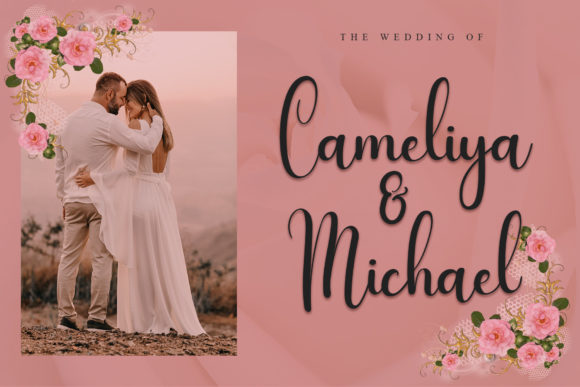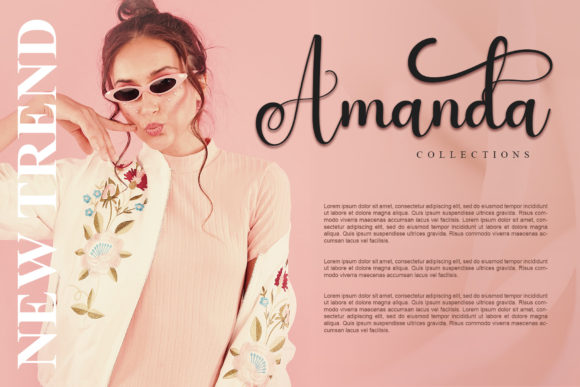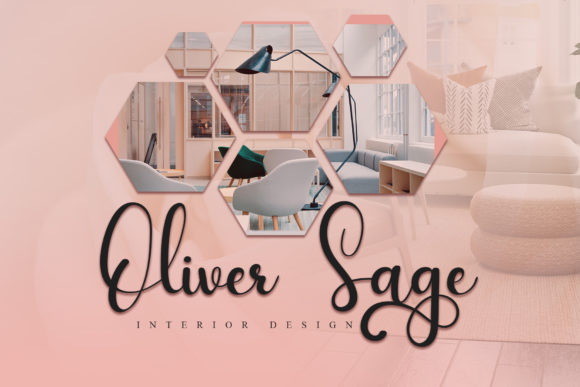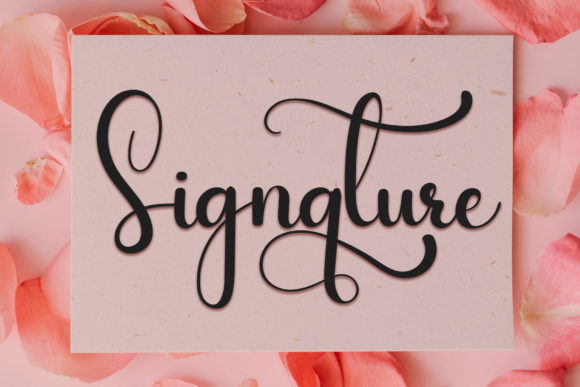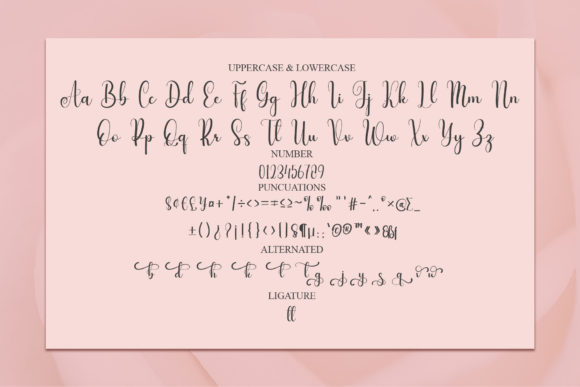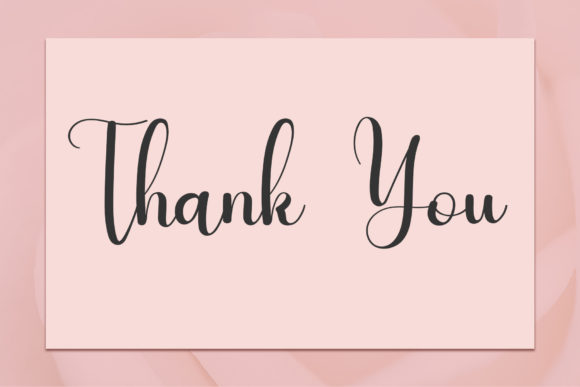
Introducing Everyday of Sunday Font: Elevate Your Creativity with Elegance
Are you a designer, crafter, or DIY enthusiast looking for a font that can add a touch of magic to your creative projects? Look no further than the Everyday of Sunday Font. This beautiful script font is carefully crafted with elegance in mind, making it perfect for a wide range of applications, from Instagram posts to calligraphy scripts for DIY projects.
What Makes Everyday of Sunday Font Special?
Everyday of Sunday is a magical script font that is designed to turn any creative idea into a true piece of art. Its elegant and flowing script makes it perfect for projects that require a touch of sophistication and whimsy. Whether you’re looking to create stunning Instagram posts, beautiful calligraphy scripts, or unique DIY projects, this font is sure to impress.
As a designer or crafter, you know how important it is to have access to high-quality fonts that can help you stand out from the crowd. Everyday of Sunday Font is designed with you in mind. Its unique and elegant script makes it perfect for a wide range of applications, including:
- Instagram posts: Add a touch of elegance to your Instagram posts and stories with this beautiful script font.
- Calligraphy scripts: Use Everyday of Sunday Font to create stunning calligraphy scripts for DIY projects, such as wedding invitations, greeting cards, and more.
- DIY projects: From crafting to woodworking, this font is perfect for adding a personal touch to your DIY projects.
- Branding and marketing: Use Everyday of Sunday Font to create unique and eye-catching branding and marketing materials, such as logos, brochures, and business cards.
Key Features of Everyday of Sunday Font
Here are some of the key features that make Everyday of Sunday Font a must-have for designers and crafters:
- Elegant script: The font features a beautiful, flowing script that is perfect for adding a touch of elegance to your projects.
- Magical touch: The font has a whimsical and magical feel that makes it perfect for creative projects.
- High-quality design: The font is carefully crafted with attention to detail, ensuring that it looks great in any application.
- Versatile: Everyday of Sunday Font can be used for a wide range of applications, from digital projects to print materials.
Everyday of Sunday Font is a beautiful and elegant script font that is perfect for designers, crafters, and DIY enthusiasts. Its magical touch and high-quality design make it a must-have for anyone looking to add a touch of sophistication and whimsy to their creative projects. Whether you’re looking for fonts for Instagram or calligraphy scripts for DIY projects, Everyday of Sunday Font is sure to impress. So why wait? Download Everyday of Sunday Font today and start elevating your creativity with elegance!